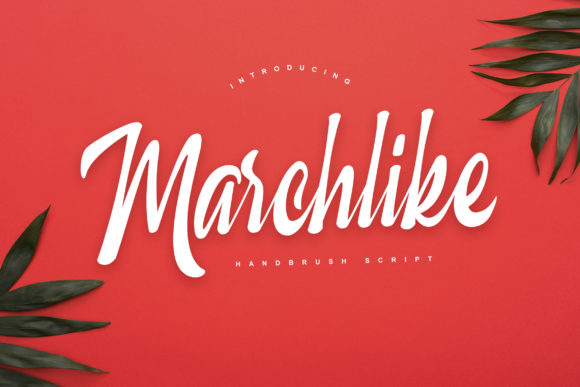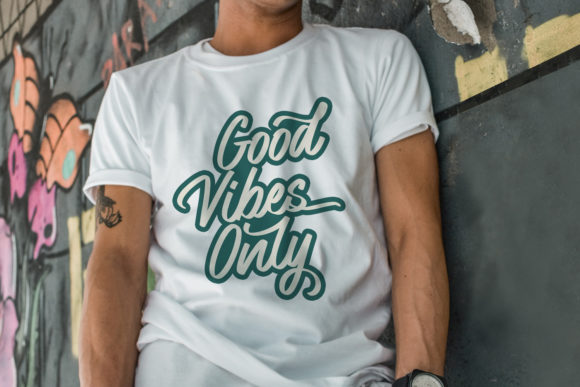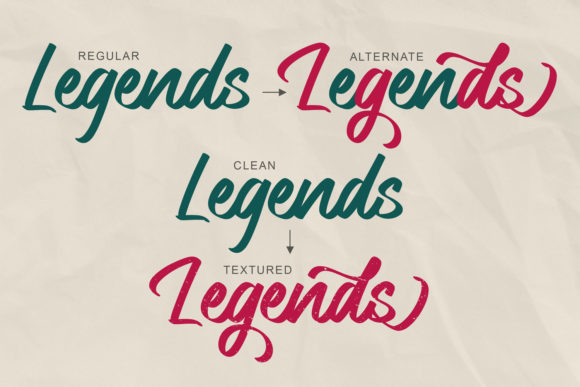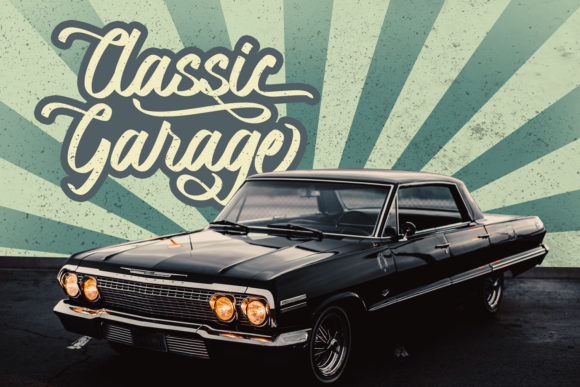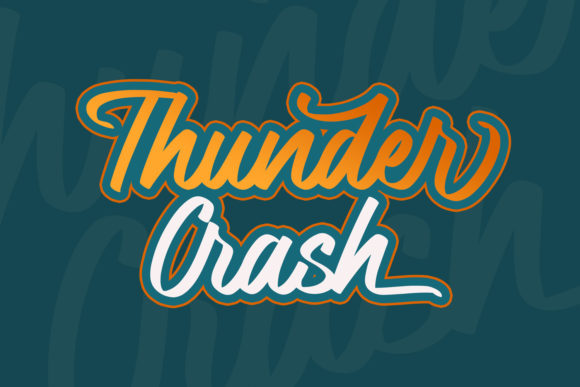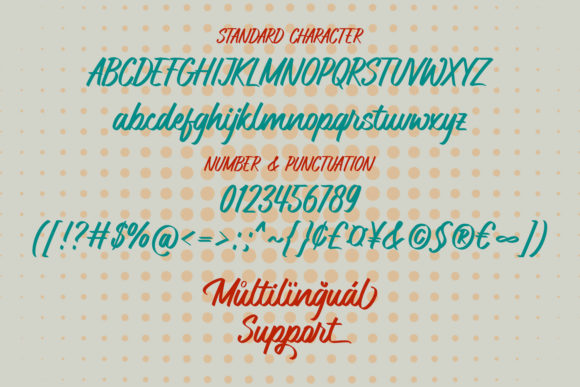
About Hayken Script Font
Hayken is a script font with a dynamic and energetic style. It can be used for various purposes such as titles, logotypes, t-shirt designs, letterheads, signage, labels, newsletters, posters, badges, and every other design that needs a unique and striking font. Add it to your most creative ideas, and notice how it makes them come alive!